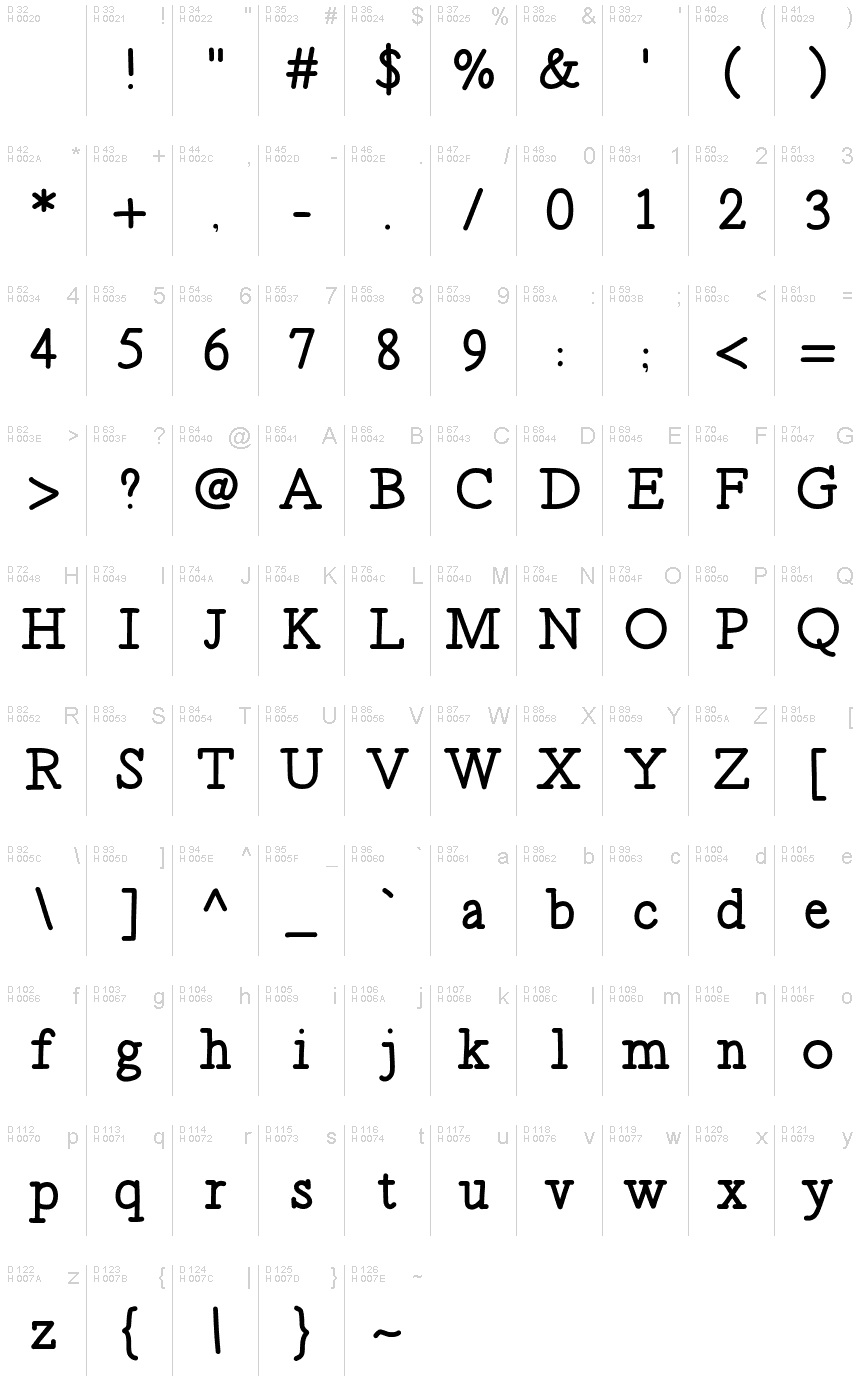
Spicy Kebab
Spicy Kebab, a captivating display font crafted by Khurasan, adds an exotic touch to any project. With its semi-light weight, this font effortlessly blends elegance and playfulness. Its unique design makes it suitable for a variety of creative ventures.
Use Spicy Kebab to bring a dash of charm to restaurant menus, food blogs, or culinary magazines. Its bold letterforms and intricate details also make it perfect for eye-catching signage or branding projects.
Let Spicy Kebab take center stage and infuse your designs with a deliciously distinctive flavor.
Use Spicy Kebab to bring a dash of charm to restaurant menus, food blogs, or culinary magazines. Its bold letterforms and intricate details also make it perfect for eye-catching signage or branding projects.
Let Spicy Kebab take center stage and infuse your designs with a deliciously distinctive flavor.